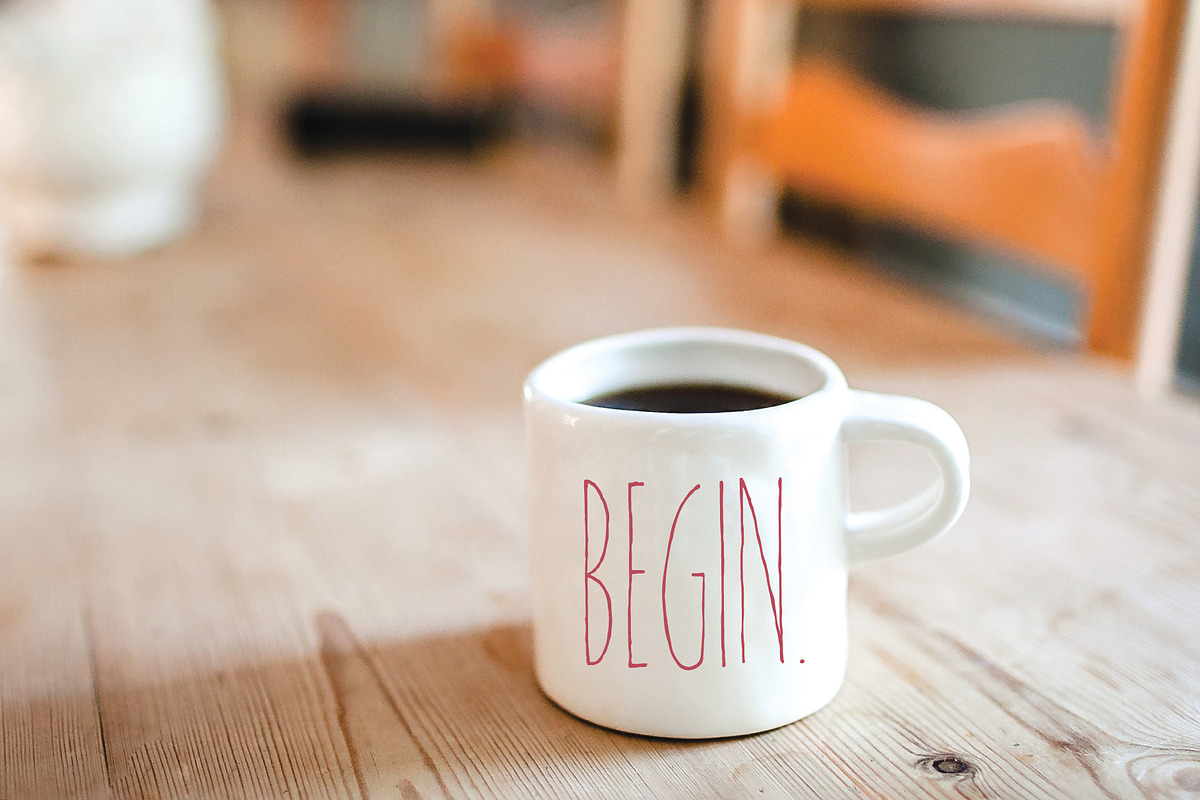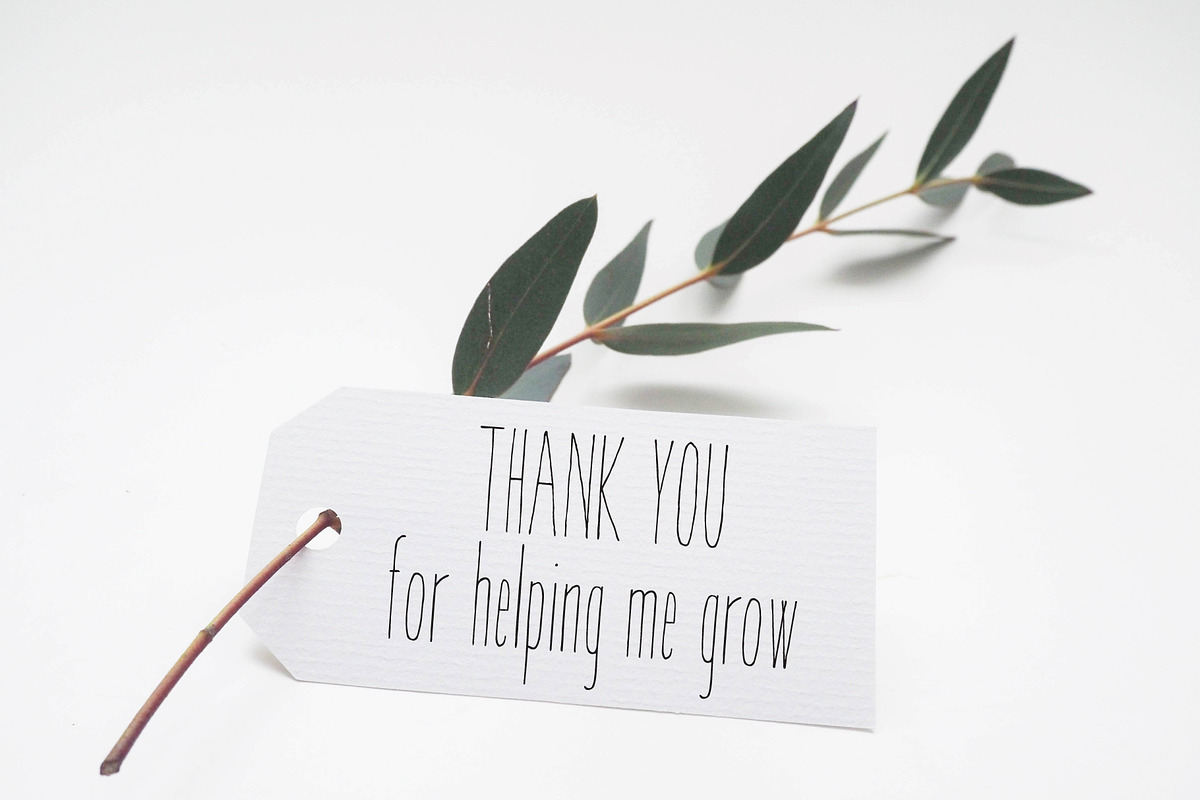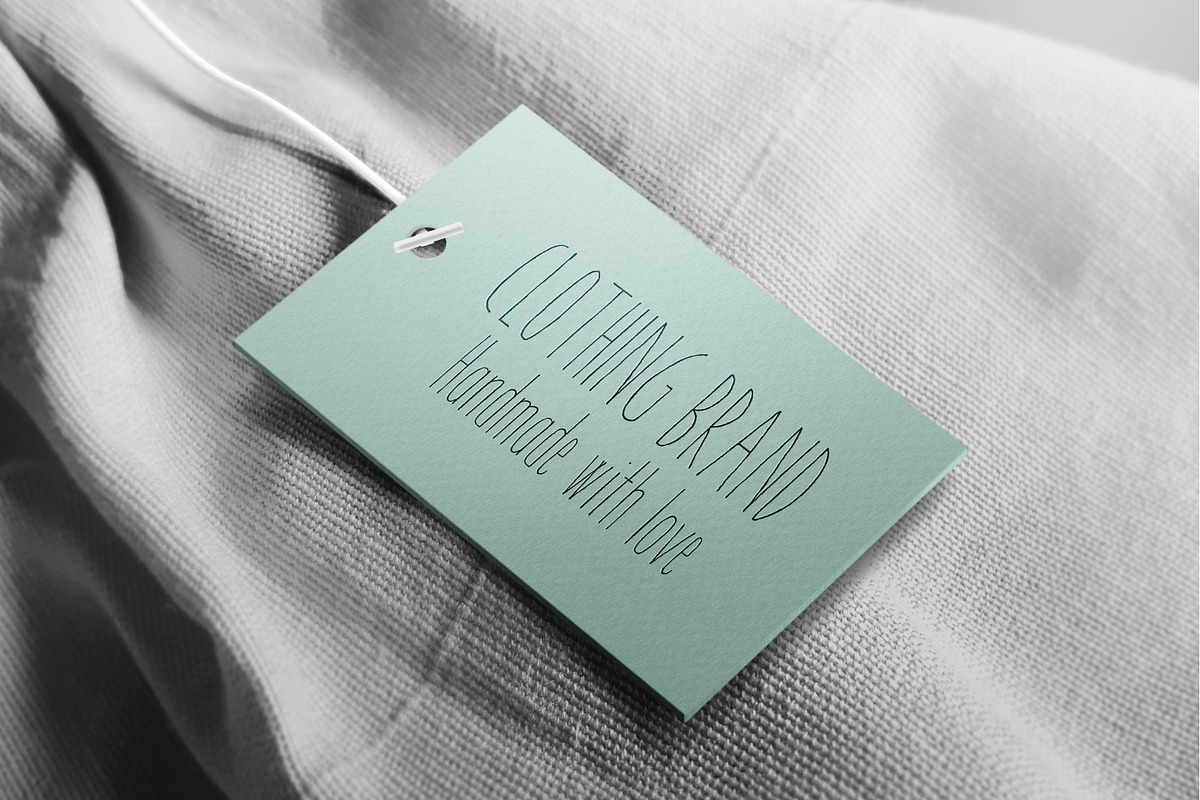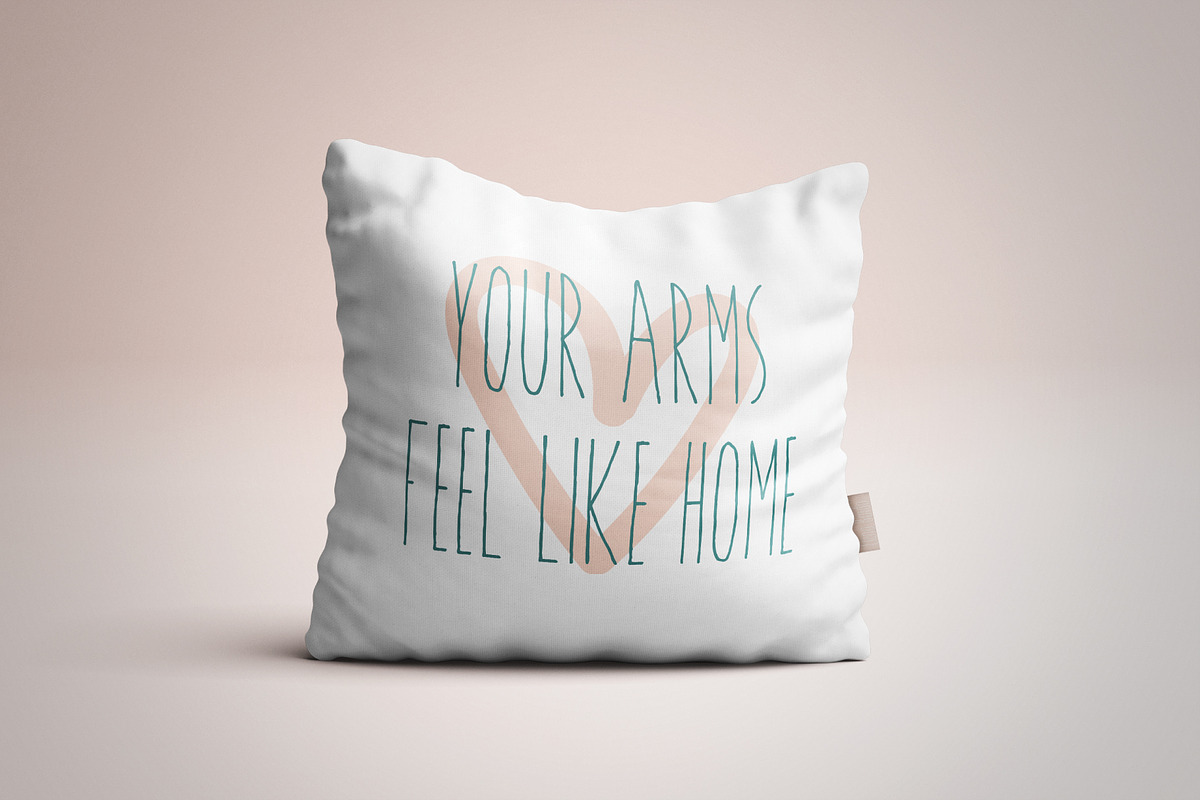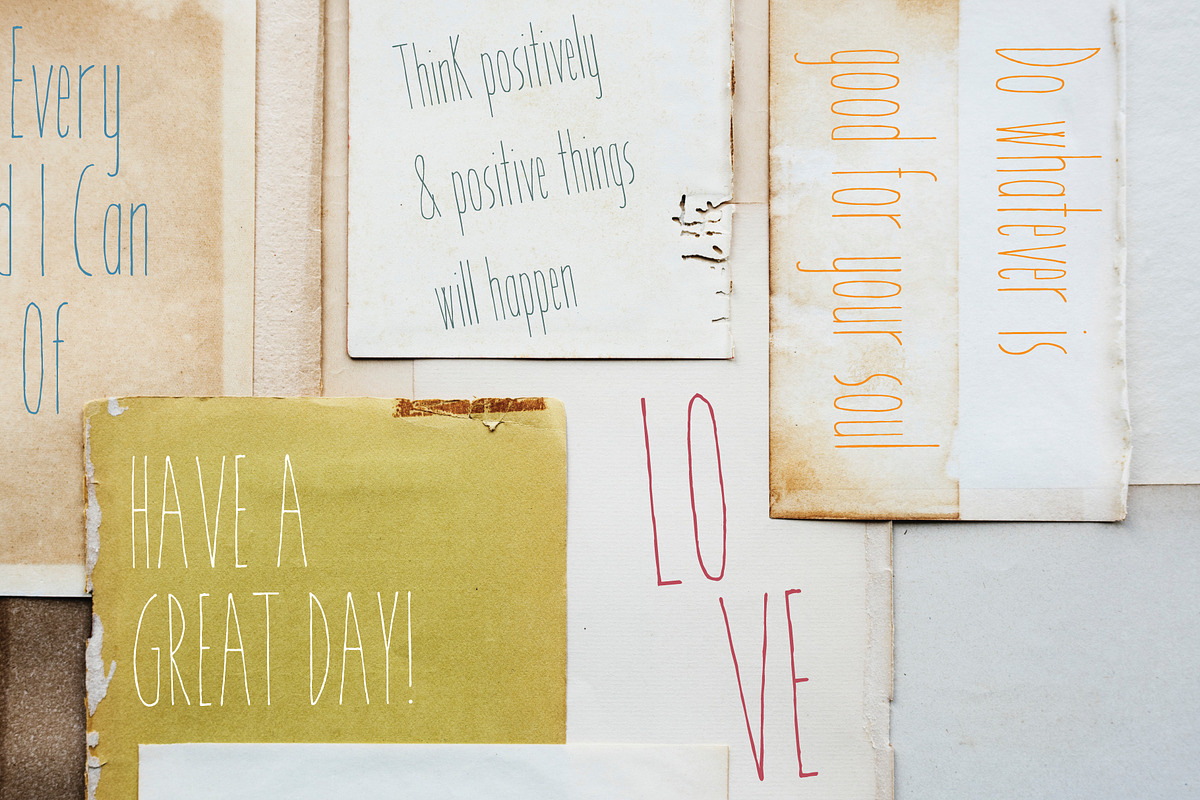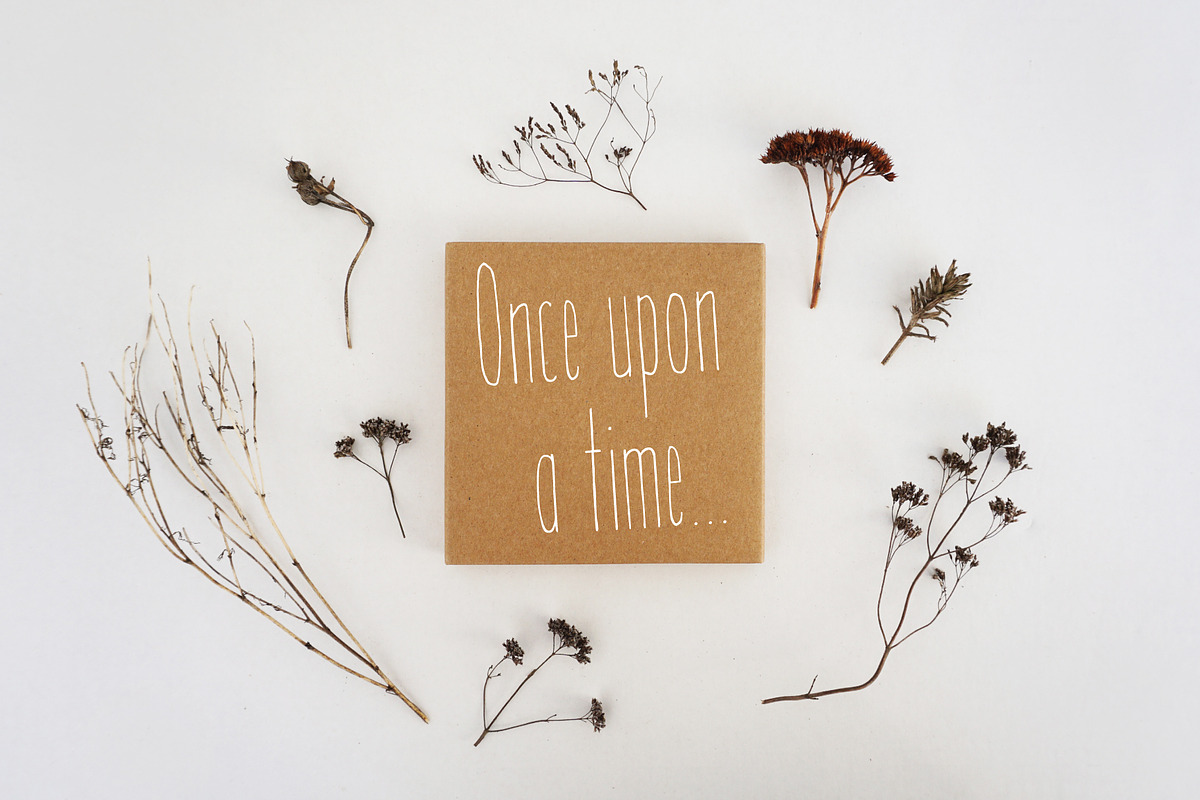
Pinocchio Font
Introducing Pinocchio, a playful font with a distinct personality.
Every single letter has been carefully crafted to give your text a charming, hand drawn feel - perfect for branding, menus, invitations, and more.
Numerals and punctuation
Common accented characters
Pinocchio Font by Elena Boido fits naturally into Branding, posters, packaging, typography.